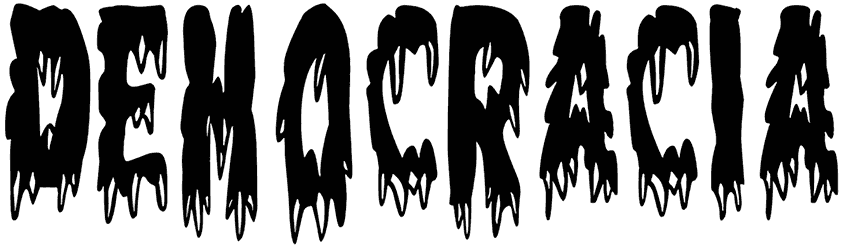
Democracia Font
Democracia font has that horror attitude where the letters feel carved, scratched, and slightly unstable, like a protest poster that spent the night in a haunted basement. It sits in the fancy horror corner with a raw display style, so even a single word can start looking tense, political, and strangely cinematic.
Use this zombie font for dystopian film titles, underground zines, dark campaign posters, punk merch, horror game screens, or album covers that need more grit than polish. Add photocopy noise, torn paper, red stamps, and heavy shadows, and the Democracia font will make the whole layout feel impossible to ignore.